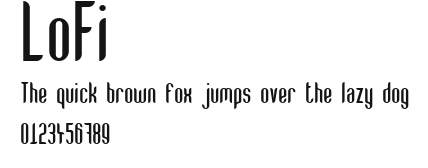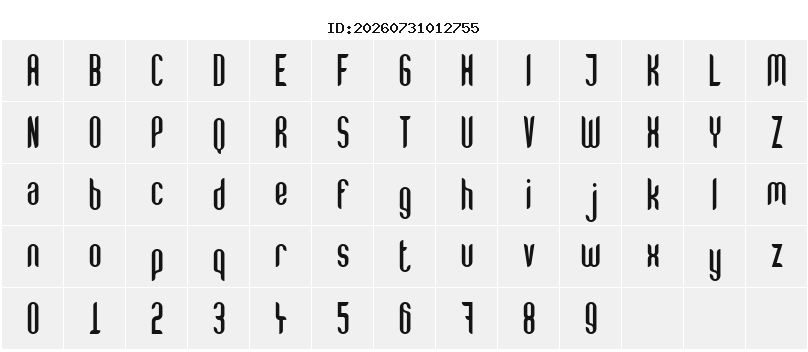
• Font Name: LoFi
About LoFi.ttf
LoFi.ttf is a modern, elegant sans-serif font designed for ultimate readability and visual harmony. Perfect for branding, headlines, web design, and print materials.